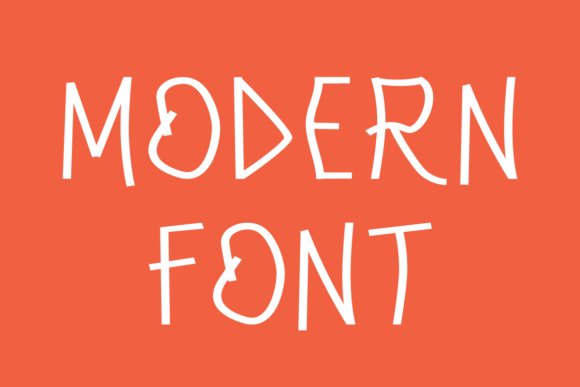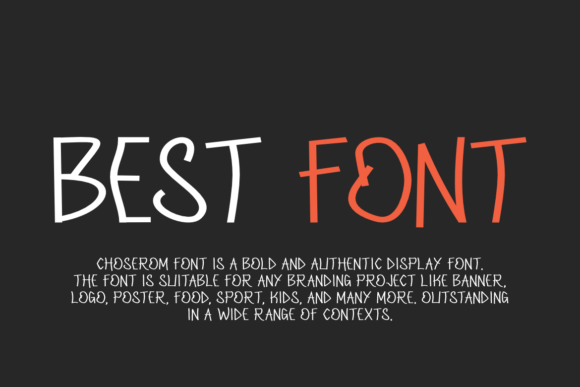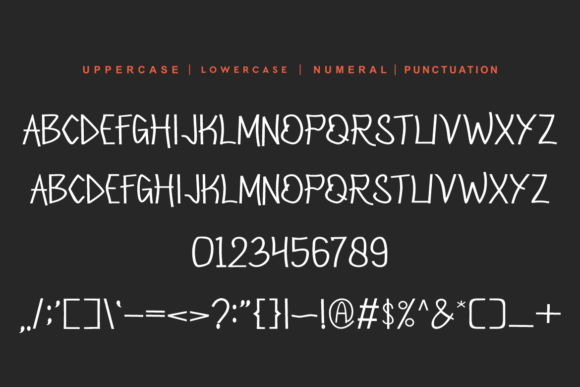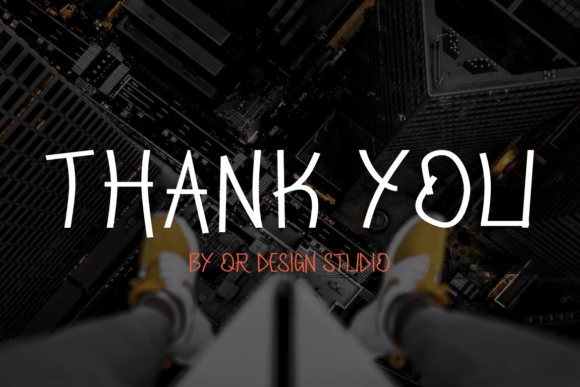
The Perfect Brush Stroke for Your Next Design Project
Have you ever stared at a blank page, waiting for the perfect idea to strike? The blank slate can be both a blessing and a curse. But what if I told you that the key to unlocking your creativity lies in the right tools? For designers, the right font can make all the difference between a mediocre design and a masterpiece.
Enter the Choserom Font, a bold and authentic handwritten font that’s perfect for any branding project. Whether you’re designing a logo, poster, or greeting card, Choserom Font’s unique charm is sure to elevate your work. Its versatility makes it a valuable asset for designers, allowing them to add a personal touch to their projects. With Choserom Font, you can create designs that truly stand out from the crowd.
Choserom Font Key Features
- Font Family: Choserom is a unique and elegant font family designed for various purposes, including typography, branding, and digital media.
- Unique Characteristics: Choserom Font features a distinctive blend of modern and classic elements, with intricate details and subtle flair, making it an ideal choice for designers seeking a unique visual identity.
- Font Styles: Choserom Font includes a range of styles, including Regular, Italic, Bold, and Bold Italic, providing designers with flexibility and versatility in their design choices.
Designer Review: Choserom Font
Overall, I have mixed feelings about the Choserom Font. Let’s break it down.
- Unique and playful character set – Choserom Font has a distinct personality that can add a touch of whimsy to any design project.
- Well-suited for titles and headings – The font’s bold and eye-catching nature makes it perfect for grabbing attention.
- Good legibility – Despite its playful nature, Choserom Font is still easy to read, making it a great choice for body text.
- Limited versatility – While the font is great for titles and headings, it may not be the best choice for large blocks of text.
- No language support for non-Latin scripts – If you need to create content in languages that use non-Latin scripts, Choserom Font may not be the best option.
Overall, I think Choserom Font is a fun and creative addition to any design project. While it may not be the most versatile font, it’s perfect for projects that need a touch of playfulness and whimsy. Just be mindful of its limitations and use it accordingly.
For best results, use the Choserom font in conjunction with bold or italic styles to create a visually striking effect.
For a unique look, use the Choserom font in combination with layer blending modes and effects.
For a professional look, use the Choserom font in conjunction with headings and subheadings to create a clear hierarchy of information.
The Choserom font is ideal for:
1. Creating eye-catching headings and titles.
2. Adding a touch of elegance to invitations and wedding stationery.
3. Designing unique and memorable logos.
Alternatives to Choserom Font
Open Sans is a modern sans-serif font that is highly legible and versatile. It is suitable for both digital and print media, and is widely used in web design, mobile apps, and marketing materials.
Compared to Choserom Font, Open Sans is more modern and sleek, with a clean and minimalist aesthetic. While Choserom Font has a more unique and quirky feel, Open Sans is more neutral and adaptable to different design styles.
Lato is a sans-serif font that is designed to be highly readable and versatile. It has a strong and modern feel, making it suitable for use in headlines, body text, and titles.
Lato is similar to Choserom Font in its modern and sleek aesthetic, but it has a more refined and polished feel. While Choserom Font has a more playful and whimsical feel, Lato is more serious and professional.
Montserrat is a sans-serif font that is inspired by the urban typography of the Montserrat neighborhood in Buenos Aires. It has a strong and modern feel, making it suitable for use in headlines, body text, and titles.